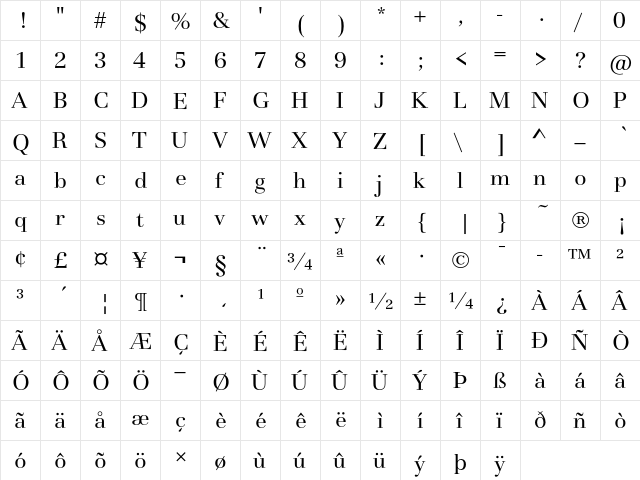
Basilia T Regular
Design Context for Basilia T Typeface
Basilia T offers clean, dependable letterforms without strong stylistic allegiance, making it a practical choice for designers who need flexibility.